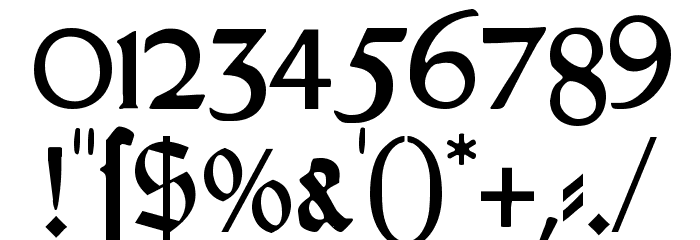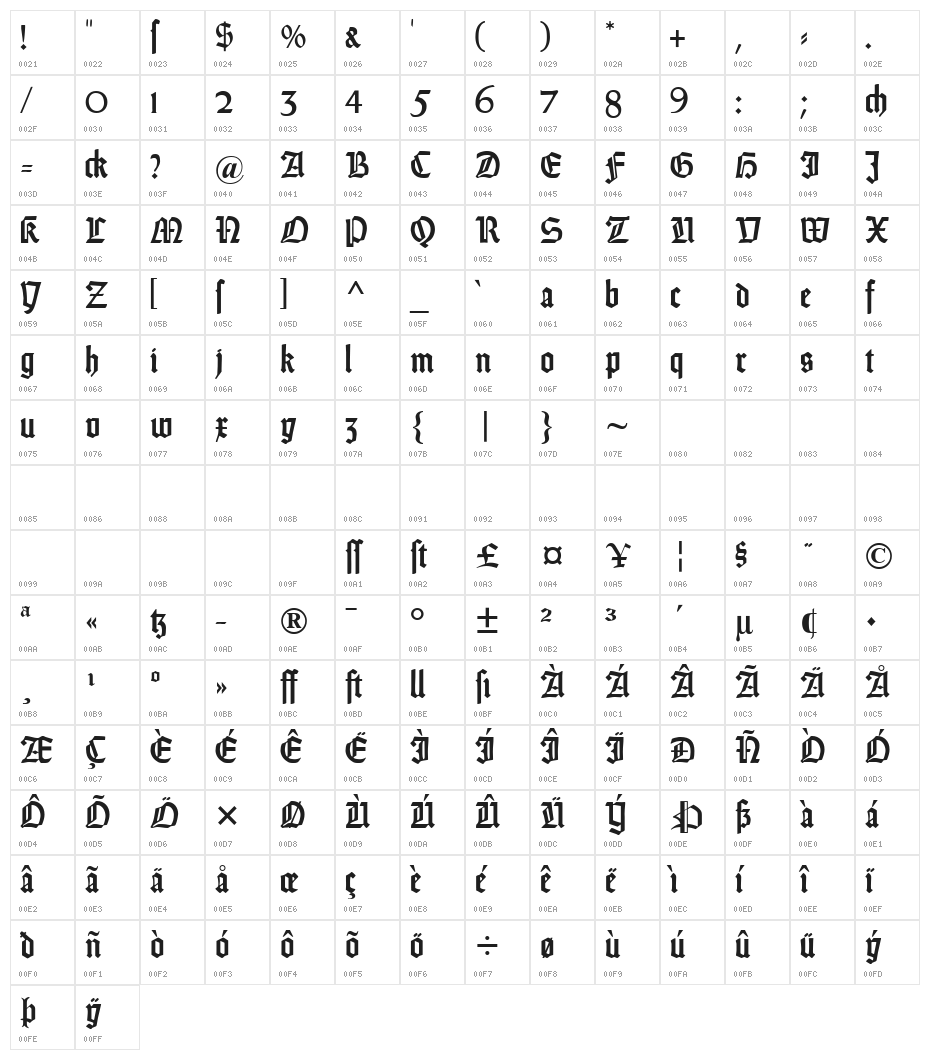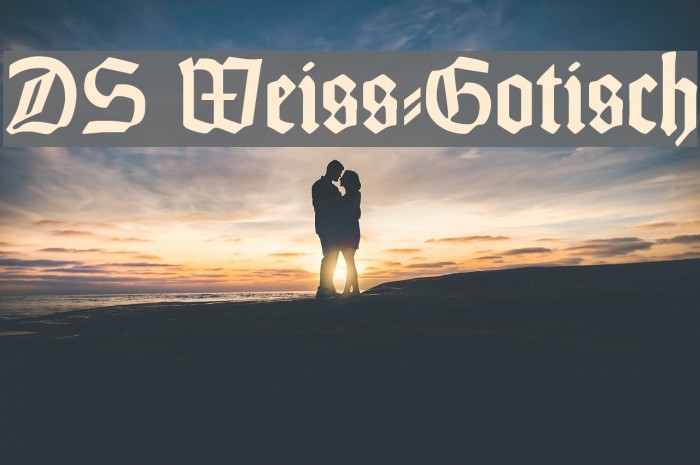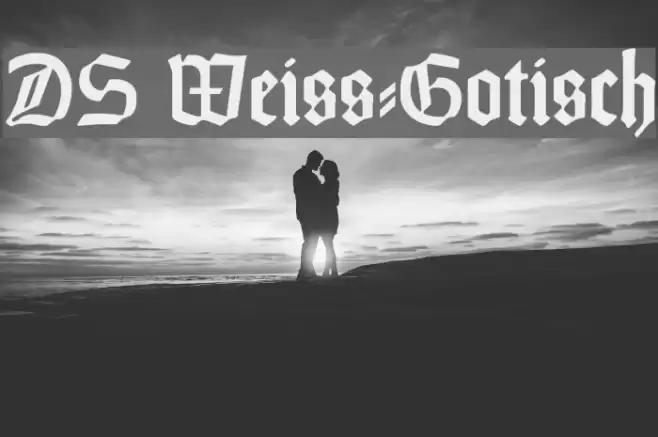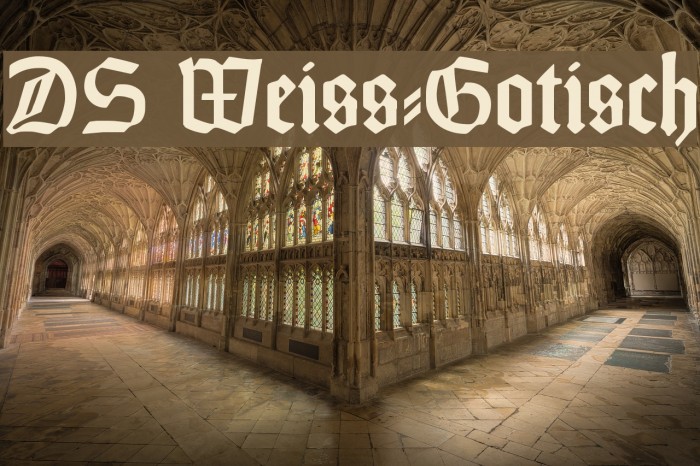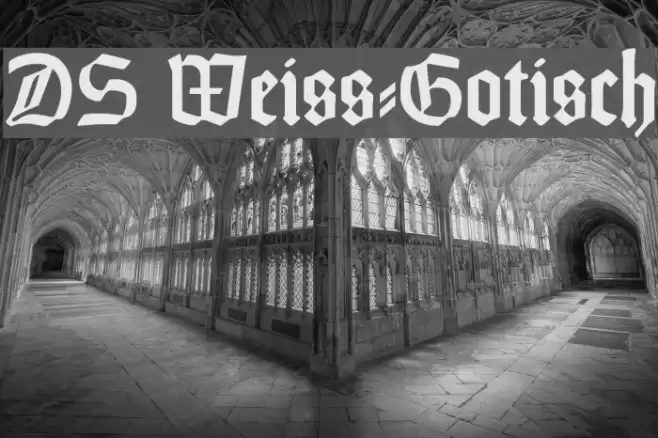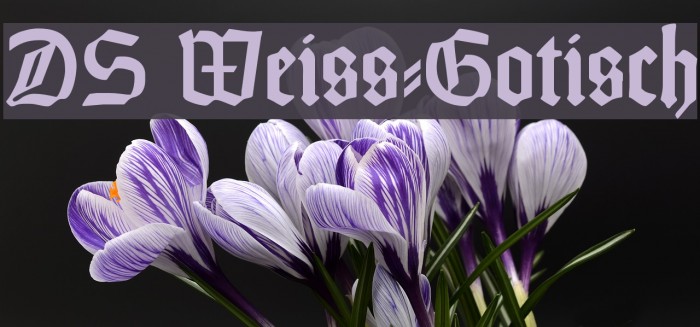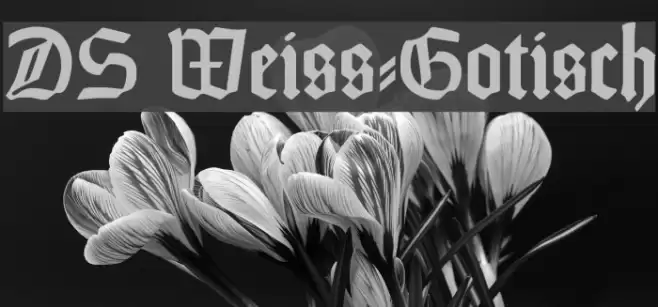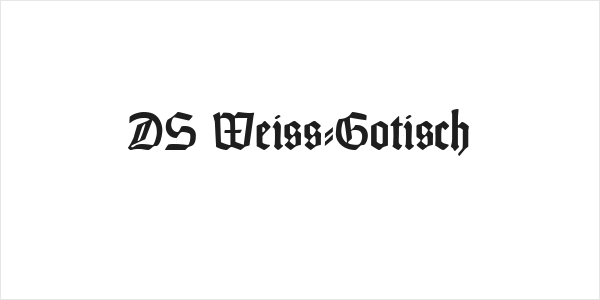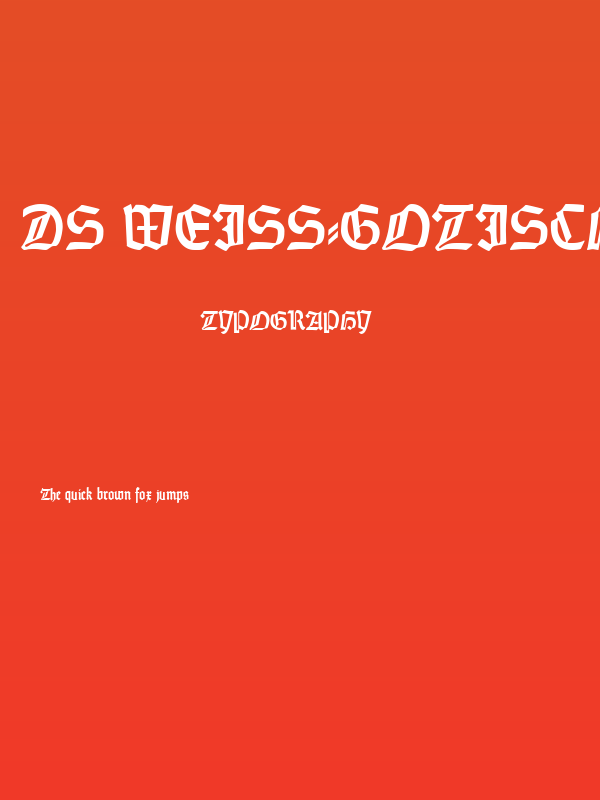
DS Weiss-Gotisch Font
DS Weiss-Gotisch Description
This font embodies the traditional elegance and intricate detailing of Blackletter typefaces. It features sharp, angular lines with a distinct medieval aesthetic, reminiscent of Gothic script used in historical manuscripts. The uppercase letters are bold and commanding, with elaborate serifs and flourishes that add a sense of grandeur. The lowercase letters maintain the same intricate style, with consistent stroke weight and a strong vertical emphasis. Numbers and special characters are designed to match the ornate style, ensuring a cohesive look across all text elements. This font is perfect for projects that require a touch of historical or classical flair, such as invitations, certificates, or branding for luxury products.
| Proposed Projects | Ideal for historical documents, luxury branding, invitations, and certificates. |